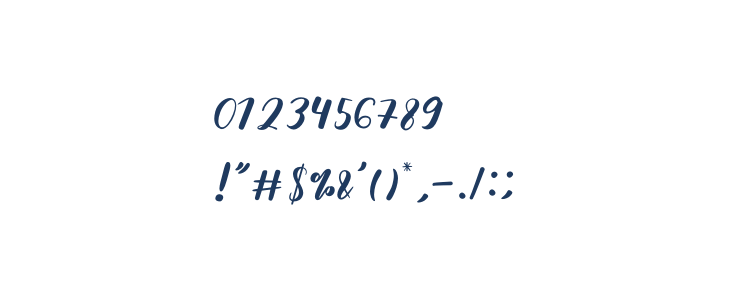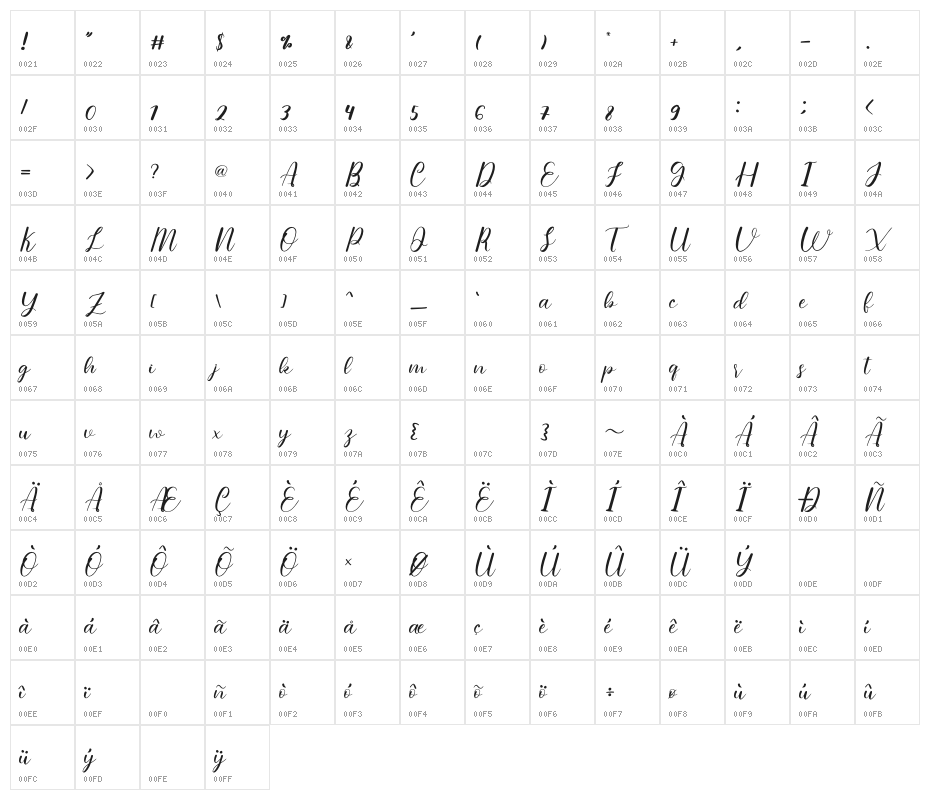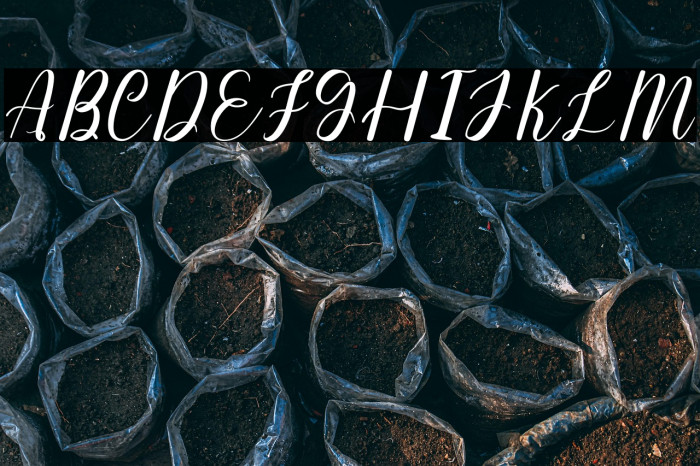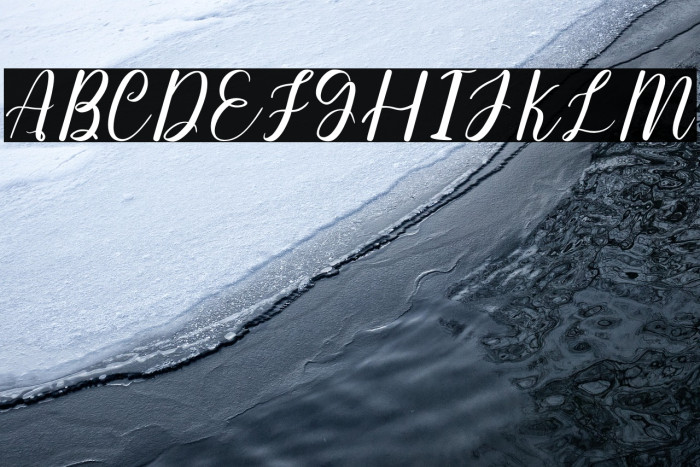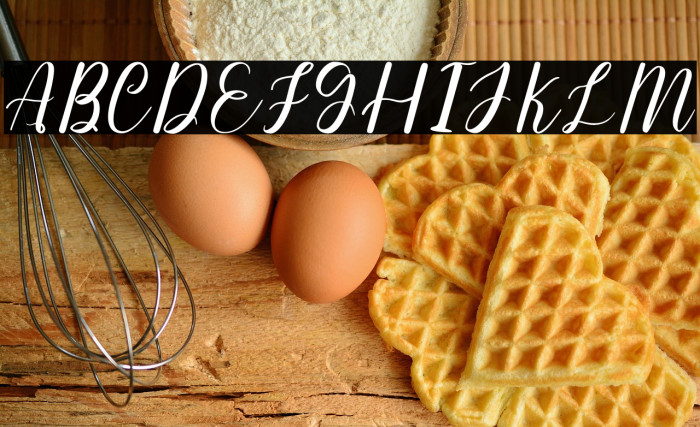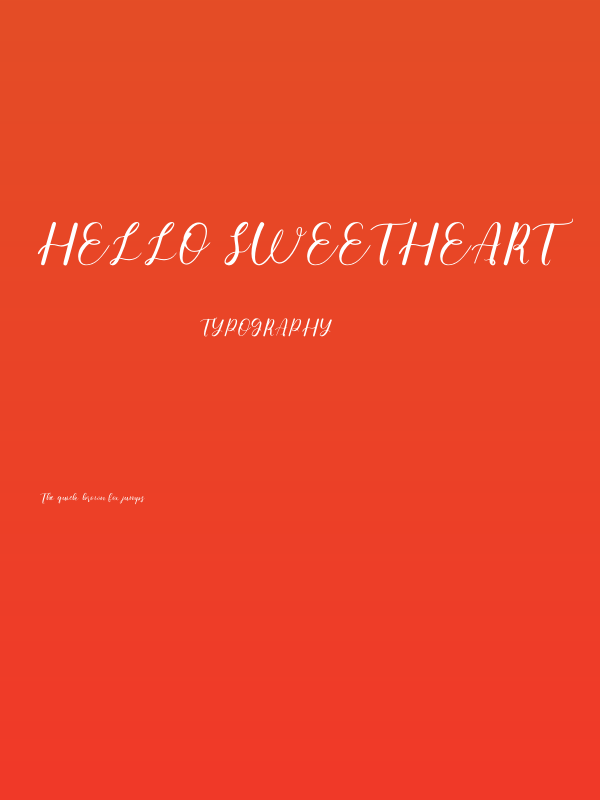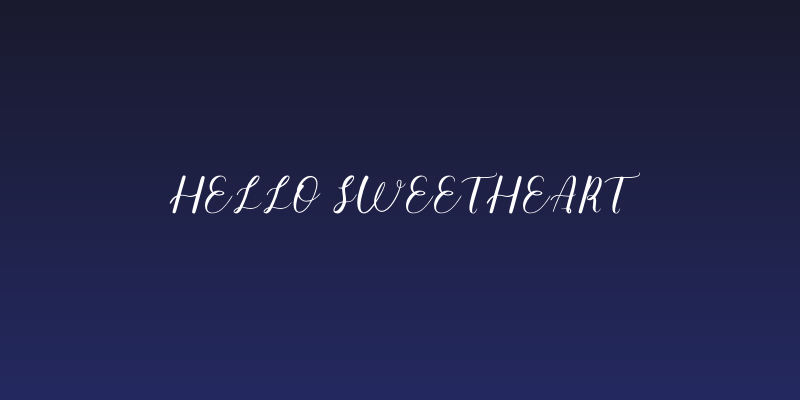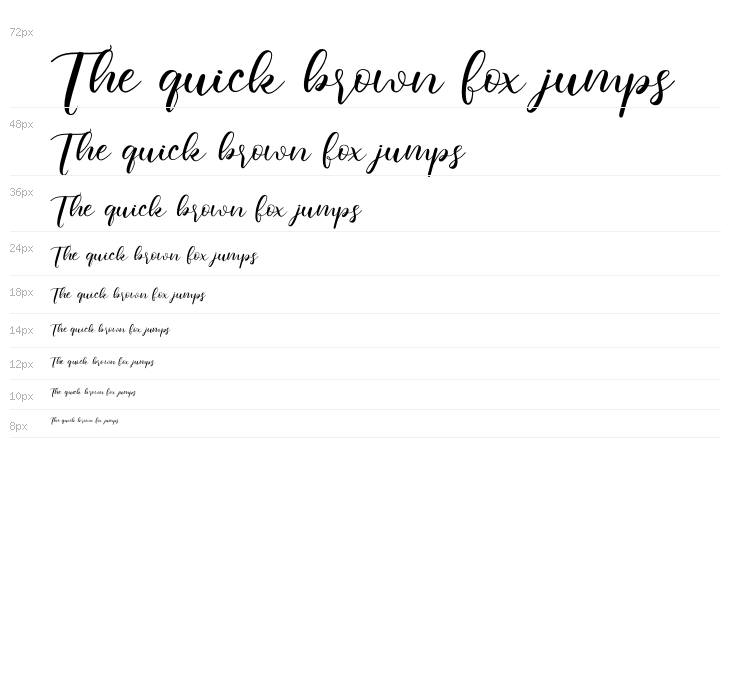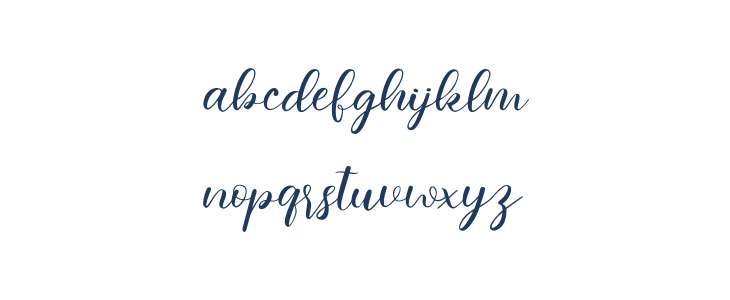
hello sweetheart Font
hello sweetheart Description
This font exudes a charming and elegant script style, characterized by its flowing, cursive letters that mimic the fluidity of natural handwriting. The uppercase letters are gracefully elongated with smooth curves and delicate loops, while the lowercase letters maintain a consistent, harmonious flow. The numerals are stylishly crafted, maintaining the overall script aesthetic. Special characters are thoughtfully designed to complement the alphabet, adding a touch of sophistication. The font's overall appearance is both romantic and playful, making it ideal for projects that require a personal, handwritten touch.
| Overall Style | Romantic, Elegant |
| Proposed Projects | Ideal for wedding invitations, greeting cards, personal branding, and romantic-themed designs. |